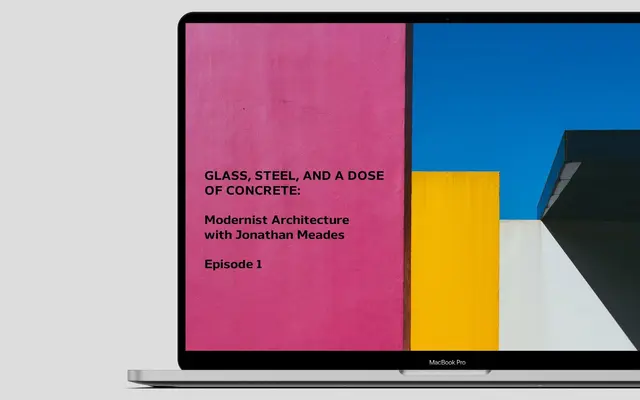
Nauman Neue
The Northern Block · 2021
A screen-optimised humanist sans in ten weights and three widths, built for legibility at small sizes across digital interfaces.
Built with broad, open letterforms and precise geometry, this family targets web and interface design where clarity at small sizes matters most. Sixty styles span ten weights with matching italics across condensed, semi-condensed and regular widths, giving designers considerable latitude for layout flexibility. OpenType features include seven numeral variants, small caps, alternates for a, e, I and M, and language support covering Western, Southern and Central European scripts plus Vietnamese.
Described explicitly as a humanist sans-serif with broad, open letterforms and precise geometry, optimised for screen legibility across multiple weights and widths.